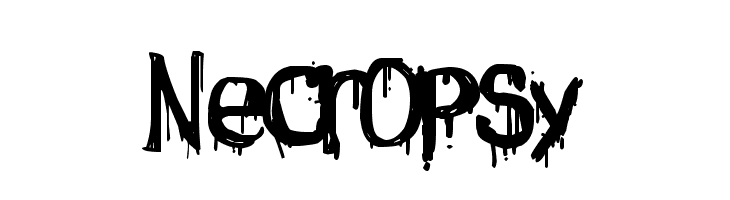
( Fonts by ShyFonts )
A bold, dripping font with a gothic flair and high contrast strokes.
( Fonts by www.norfok.com - Norfok® Incredible Font Design - Thomas W. Otto )
A bold, dripping font perfect for horror and Halloween themes.
( Fonts by Kevin Christopher - www.kcfonts.com )
An edgy, dripping font with a rebellious, artistic vibe.
A bold, playful font with a dripping effect, ideal for creative projects.
( Ankokukoubou - www.ankokukoubou.com/ )
A dripping, cursive font with a bold, artistic style.
A bold, dripping font with a playful, liquid-like appearance.